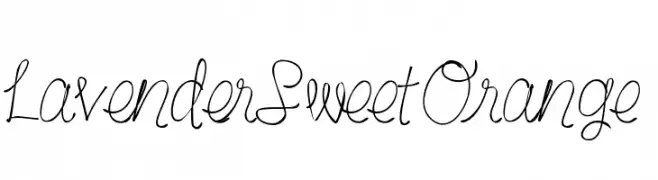
A classic serif font with elegant, refined letterforms and sharp serifs.
An elegant script font with flowing, interconnected letters and ornate flourishes.
A bold, decorative font with unique serifs and a strong presence.
An elegant script font with flowing, interconnected letters and decorative flourishes.
An elegant script font with flowing, interconnected letters and a sophisticated style.
A fluid, elegant script font with a natural handwritten style.
A dynamic and flowing script font with elegant, cursive letterforms.
An elegant script font with flowing, interconnected strokes and luxurious flourishes.
A bold, cursive font with an elegant, handwritten style.
A bold, modern sans-serif font with a geometric and clean design.
A classic serif font with elegant curves and strong presence.
A delicate and elegant handwritten script font with flowing, connected letterforms.
A dynamic and elegant script font with bold, flowing characters.
A playful and elegant handwritten script font with bold, flowing characters.
A playful and whimsical script font with elegant curves and decorative flair.
A modern, light, semi-condensed sans-serif font with clean lines and balanced proportions.
An elegant script font with flowing, interconnected letters and intricate swirls.
A playful and elegant script font with a handwritten style.
A bold, dynamic script font with flowing, connected letterforms and a modern aesthetic.
A futuristic, geometric italic font with bold, angular lines and unique cutouts.
A bold, flowing script font with elegant and playful characteristics.
A bold, dynamic font with a halftone effect and slanted characters, perfect for modern designs.
A modern serif font with high contrast and elegant serifs.
A modern, decorative font with flowing curves and sharp edges, perfect for artistic projects.
An elegant, flowing script font with a refined, handwritten style.
An elegant script font with flowing, interconnected letters and sophisticated style.
A bold, high-contrast font with dramatic curves and a modern classic style.
A playful and elegant script font with smooth, flowing curves.
A stylish and elegant script font with flowing, connected letterforms.
A lively and elegant script font with fluid, cursive strokes.
A graceful, handwritten script font with elegant, flowing letters.